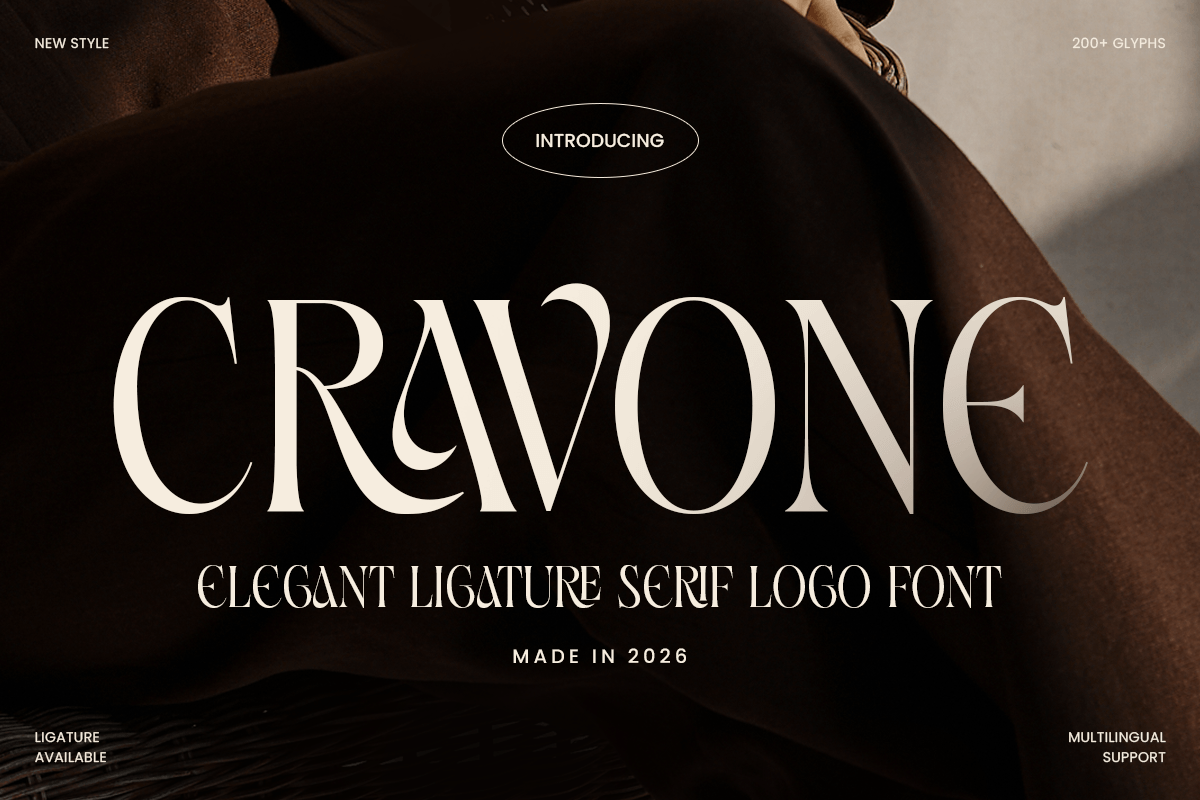
Cravone
-Elegant Luxury Serif FontCravone - Elegant Luxury Serif Font
CRAVONE is an elegant luxury serif font designed to bring refined sophistication and premium beauty to your typography. With graceful serif details, balanced proportions, and a polished visual rhythm, this typeface creates a high-end tone that feels timeless, stylish, and instantly brand-ready.
Built for luxury branding and editorial design, CRAVONE works beautifully across logos, wordmarks, magazine covers, website headers, packaging, labels, invitations, presentations, signage, and upscale marketing visuals. Its elegant serif structure keeps every composition readable while adding a luxurious presence across both digital and print layouts.
Whether you’re building a fashion identity, developing a beauty brand, designing premium packaging, or crafting sophisticated editorial visuals, CRAVONE provides a refined serif foundation that makes your typography feel polished, graceful, and unforgettable.
Inspiration Behind CRAVONE
CRAVONE is inspired by classic luxury typography and modern editorial elegance—where refined serif forms, balanced spacing, and premium detail create timeless visual identity. The design focuses on graceful structure and sophisticated rhythm to support high-end branding with an elegant, memorable presence.
CRAVONE Font Features:
Elegant luxury serif letterforms with refined premium character
Perfect for logos, branding systems, and editorial headline typography
Clean structure for sophisticated layouts and strong readability
Luxury logos, wordmarks, and premium brand identity systems
Fashion, beauty, skincare, fragrance, and boutique branding
Editorial layouts, magazine covers, lookbooks, and headlines
Premium packaging, labels, invitations, and elegant stationery
Social media campaigns, websites, presentations, and marketing assets
Elevate your premium identity with CRAVONE—an elegant luxury serif font made for timeless, sophisticated branding. ✨